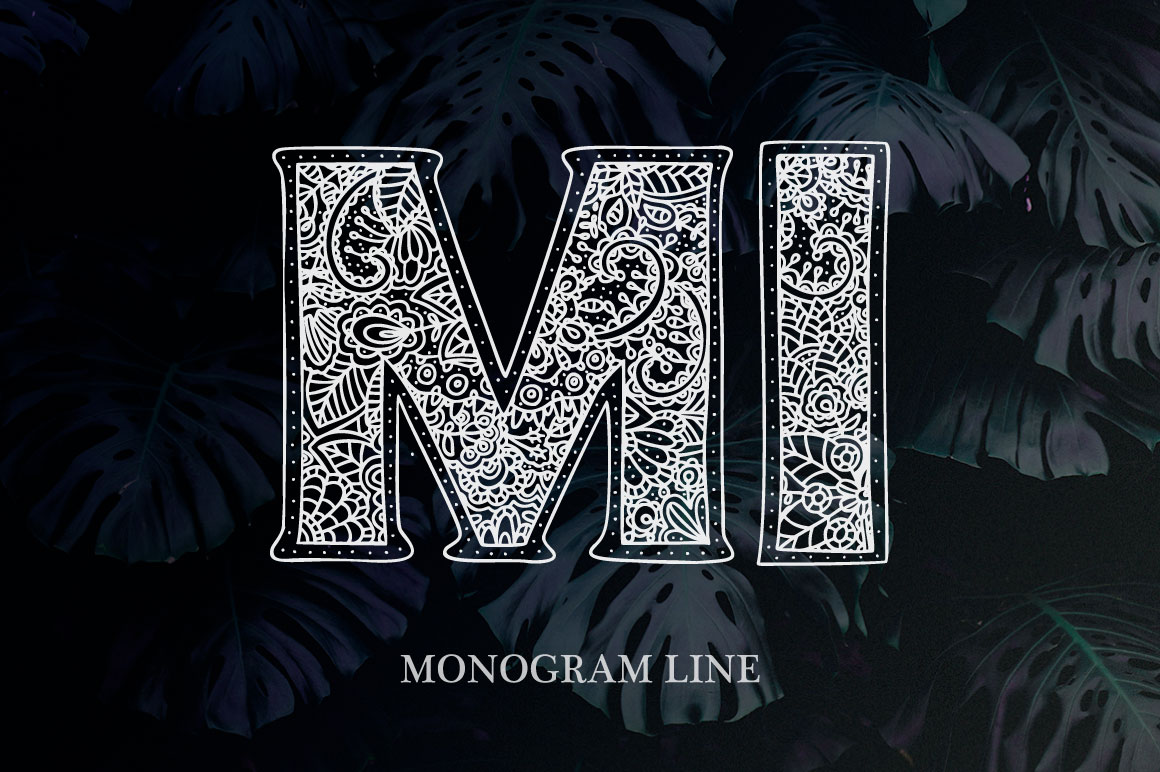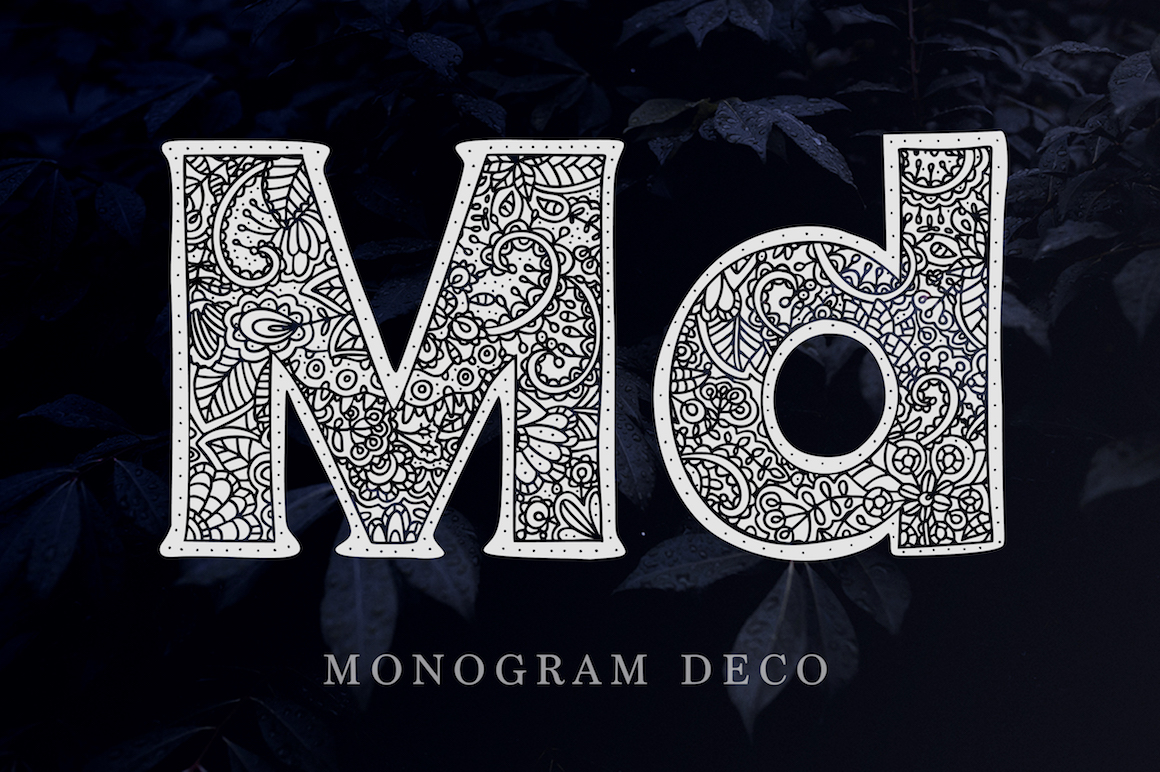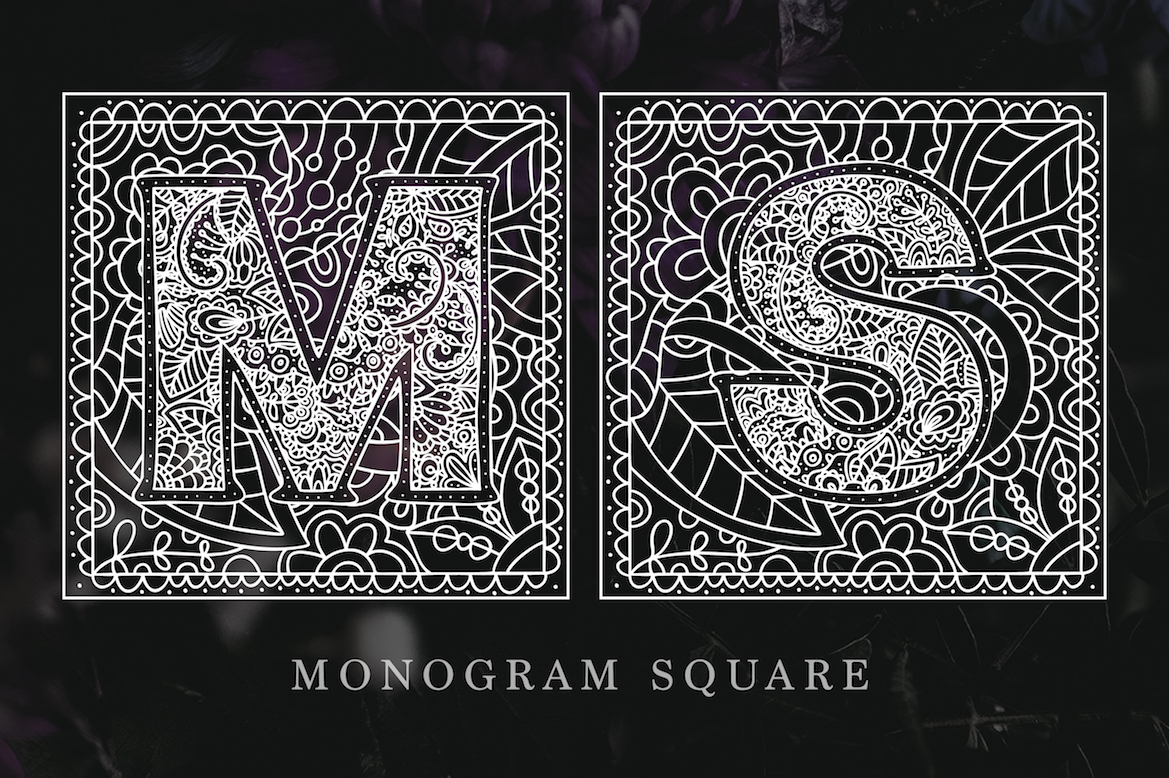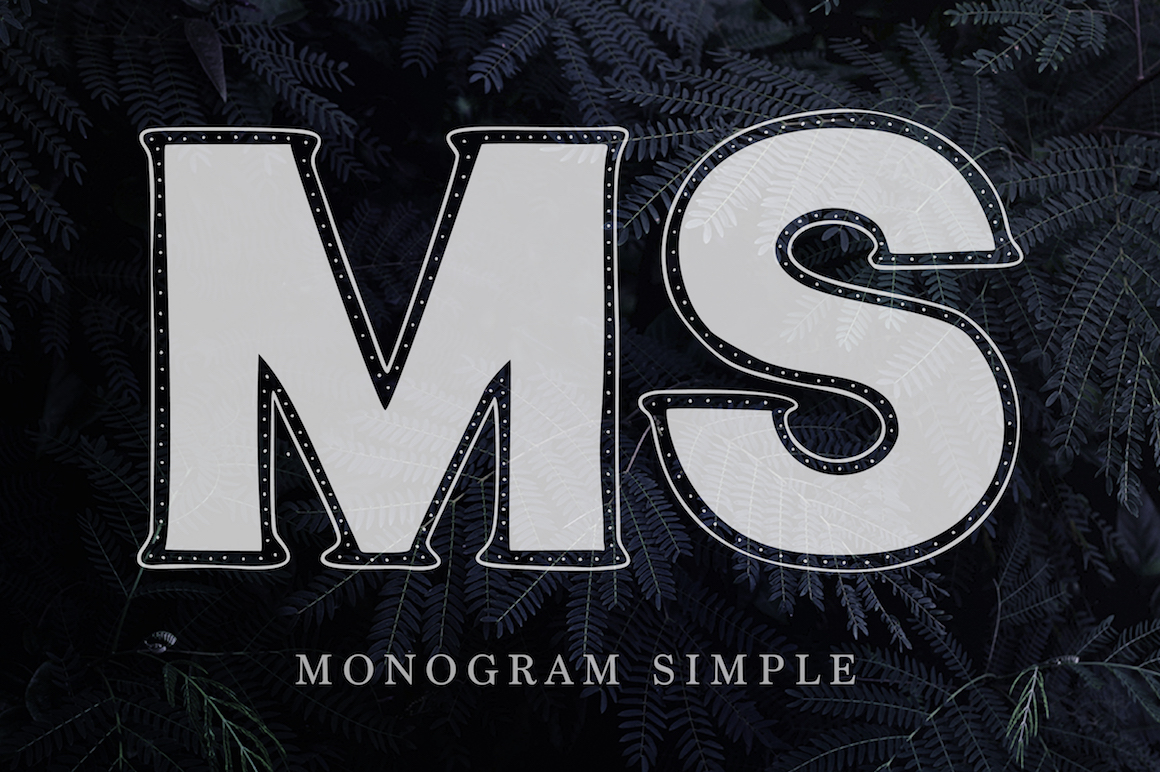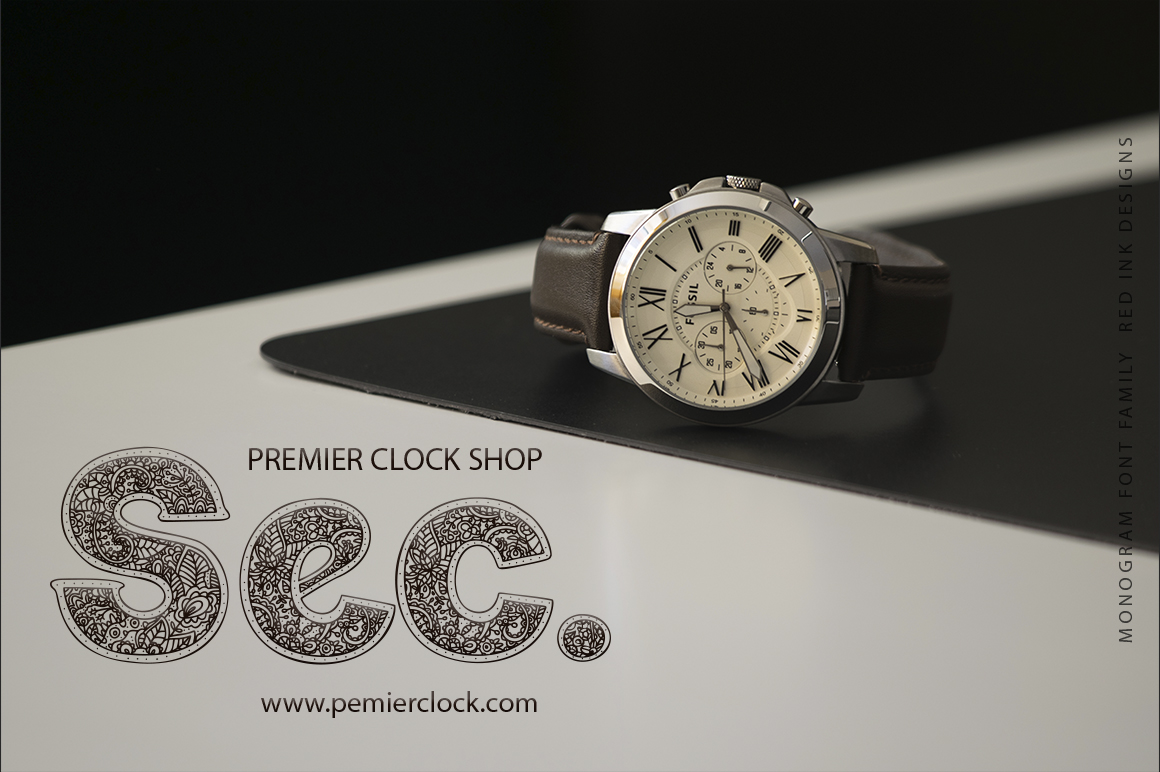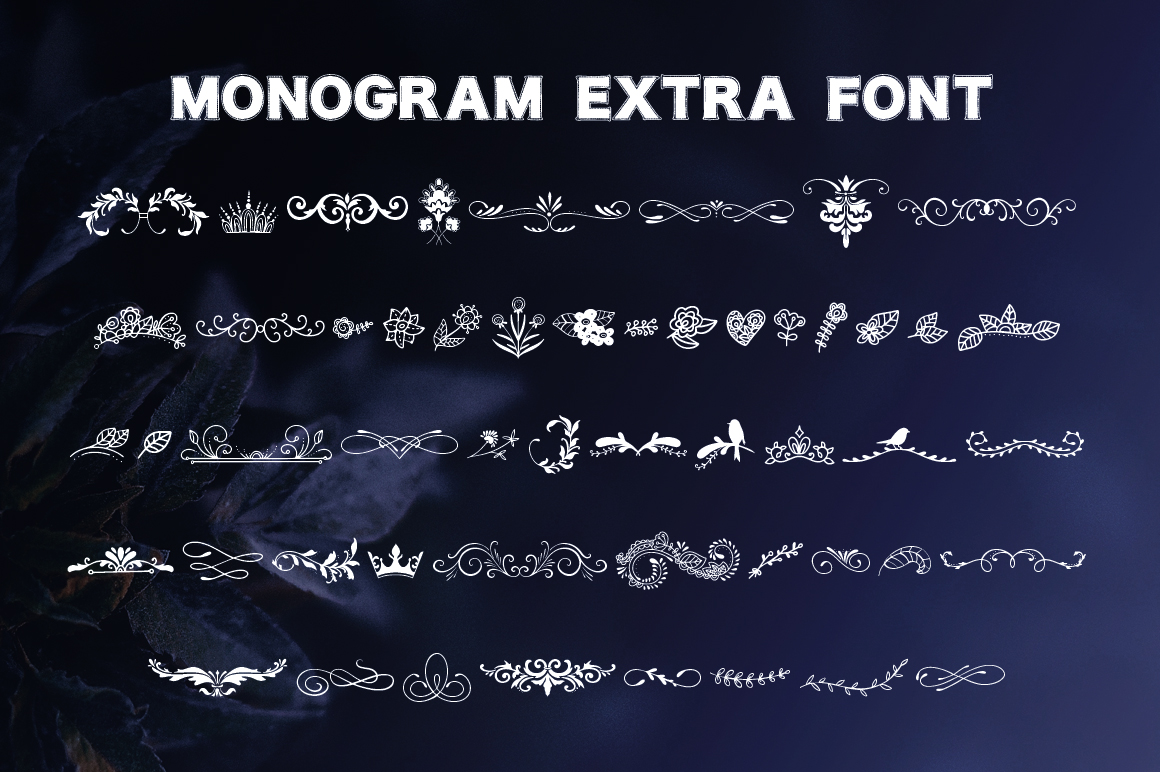
Introduction to Monogram Font Family Font
The Monogram Font Family includes 5 extremely elegant and breathtakingly detailed fonts, with each letter being a detailed art piece that can stand alone or be paired flawlessly.
Odd looking and creative, Monogram were crafted for the most unique and ornate touch available for your design projects .